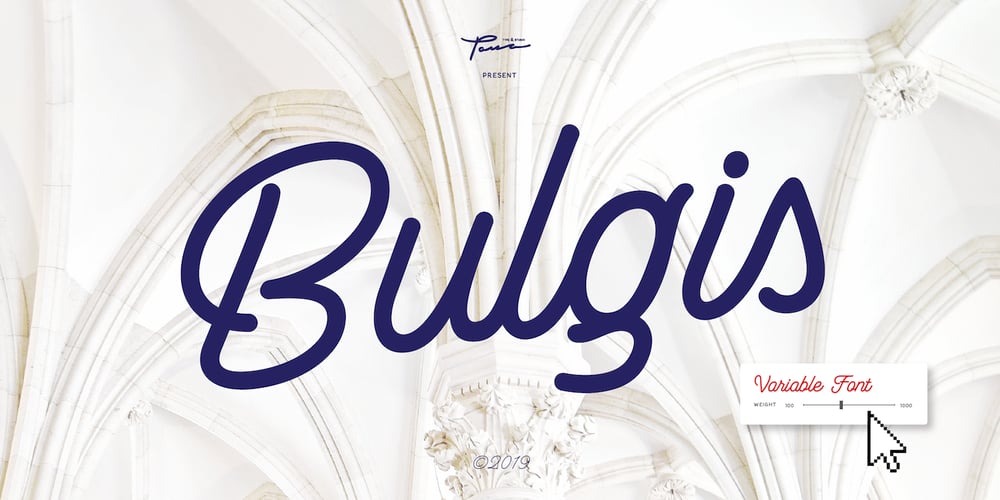
Bulgis
Bulgis font
Bulgis Font Family was designed by Ajusia and published by Panatype Studio. Bulgis contains 4 styles and family package options. Bulgis script font is a monoline script font inspired by retro scripts. Bulgis script font comes in three weights and a Variable Font format is available. It’s easy to use and to choose the desired weight for your design. OpenType features makes it more natural and attractive to the needs of designers. Made with care, this font is suitable for digital lettering, logos, t-shirts, print, business cards, branding materials, quotes, nature photography, and more. OpenType Features: Ligatures Terminal Forms ( Contextual Alternates ) Initial Forms ( Contextual Alternates ) Stylistic Set Swashes Language Support for Latin ( Western European, Central European, South Eastern European )